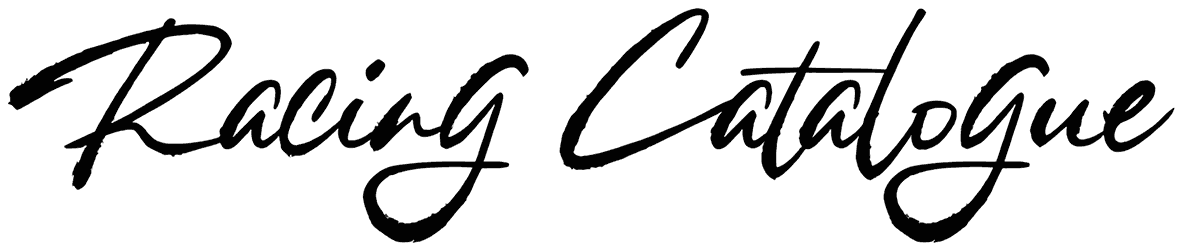
Racing Catalogue Font
Racing Catalogue is a perfect and magical script font that comes with a cursive style that dances along the baseline, thus conveying a sense of delicacy, softness, drama, or dynamic to the audience and attracting their a…
Racing Catalogue is a perfect and magical script font that comes with a cursive style that dances along the baseline, thus conveying a sense of delicacy, softness, drama, or dynamic to the audience and attracting their attention to your artwork including business cards, logos, and product labels at the first glance.
If you want to add a handwritten touch to your creative ideas, then overlook the lack of good readability.